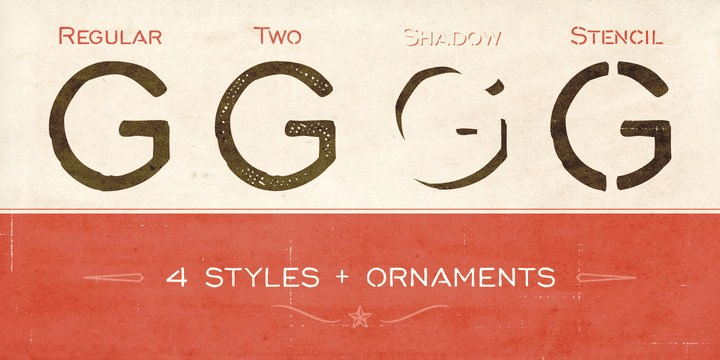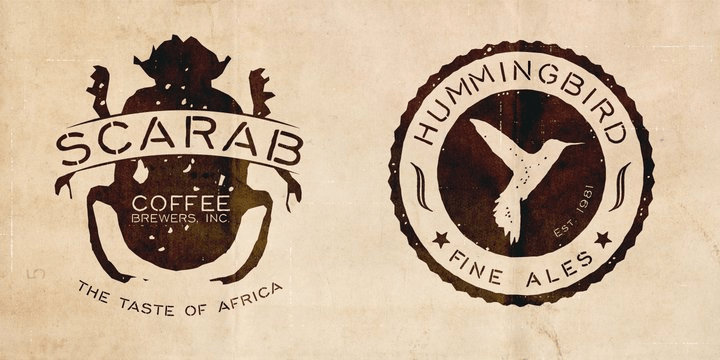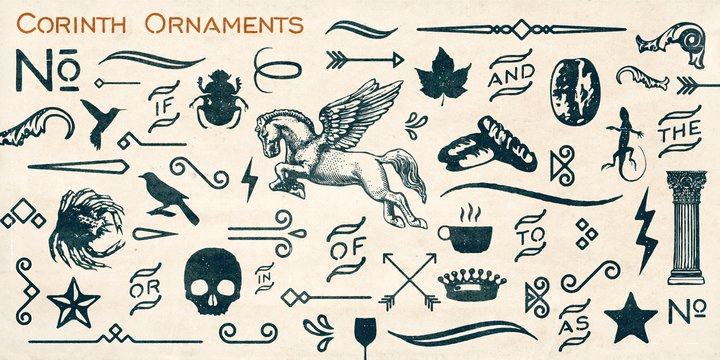
Do you need that perfectly-imperfect yet highly legible font to pair with a script or supplement a logo? Corinth is a hand drawn geo sans with 4 styles plus ornaments that pairs well with scripts, is readable at small sizes and still achieves the retro,…